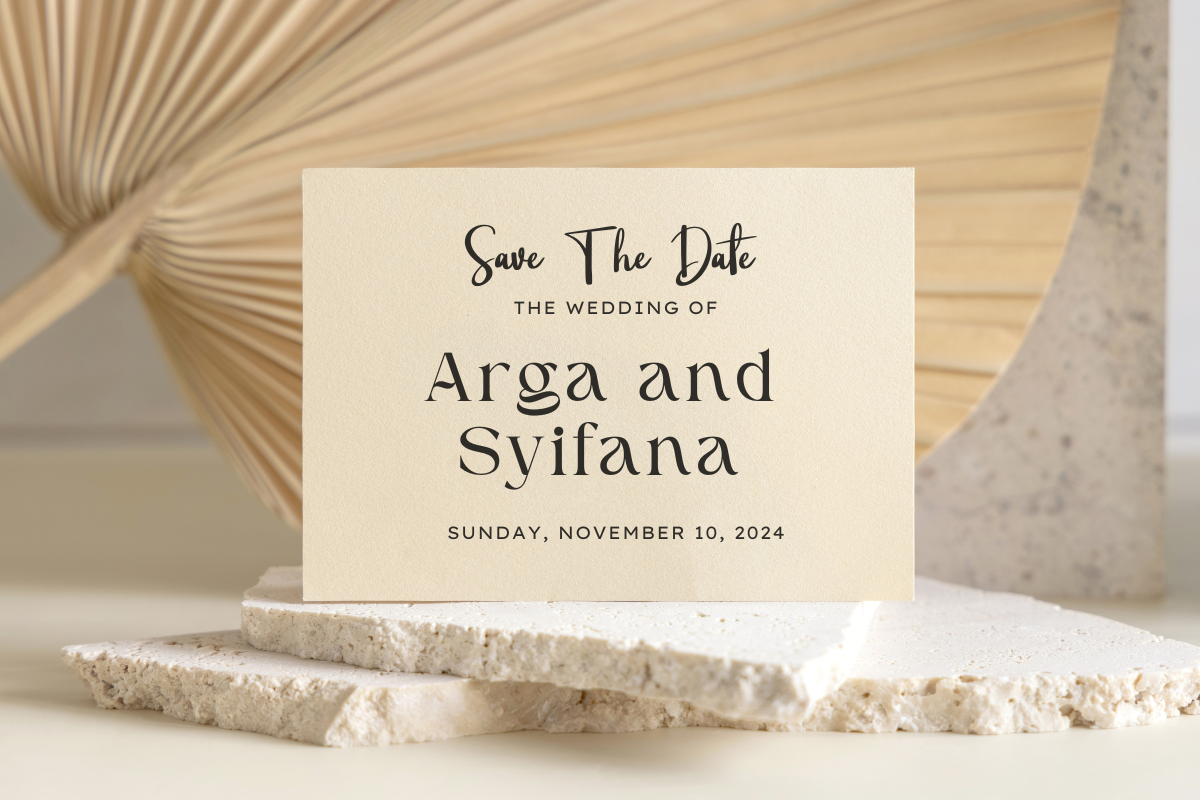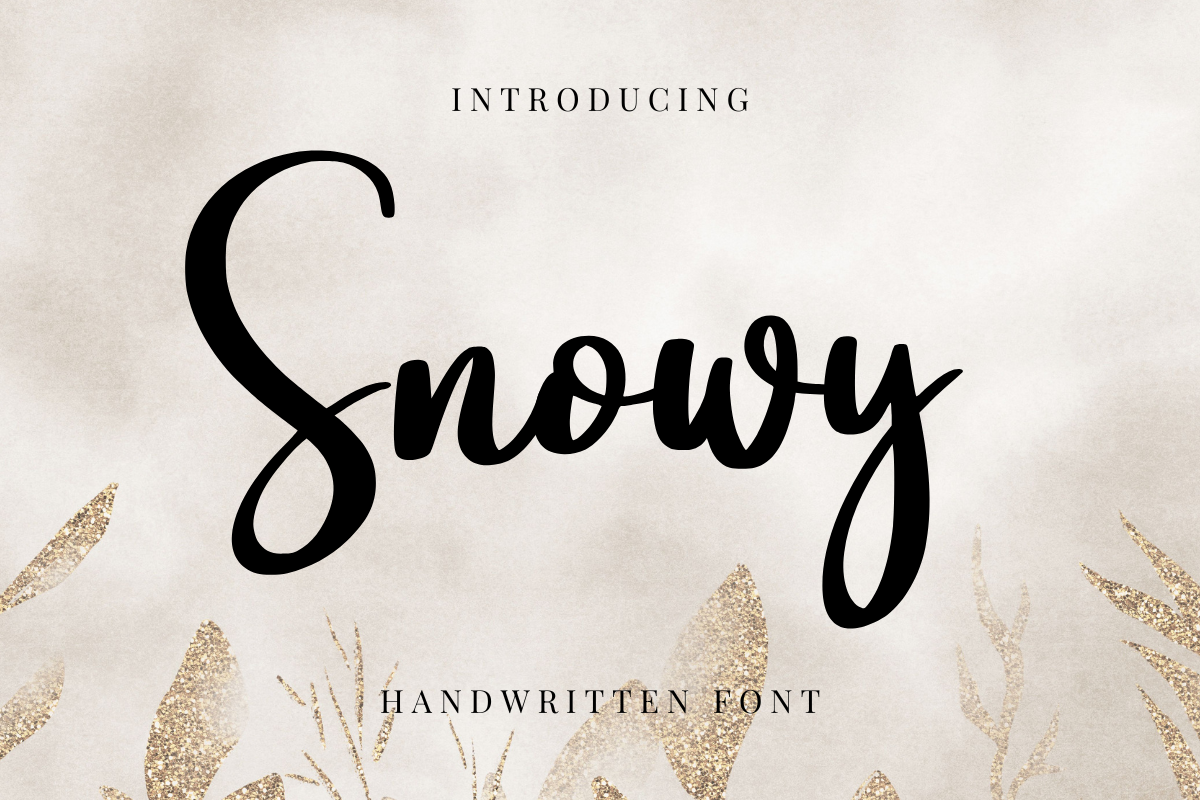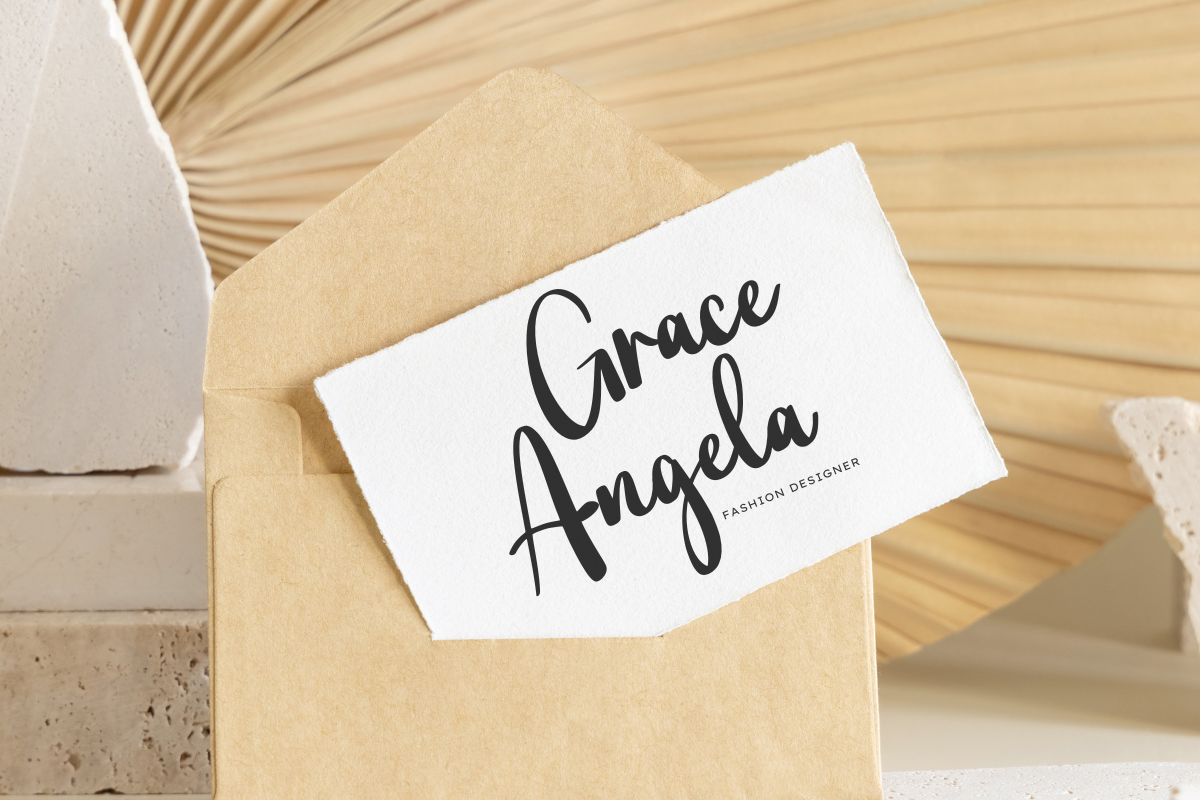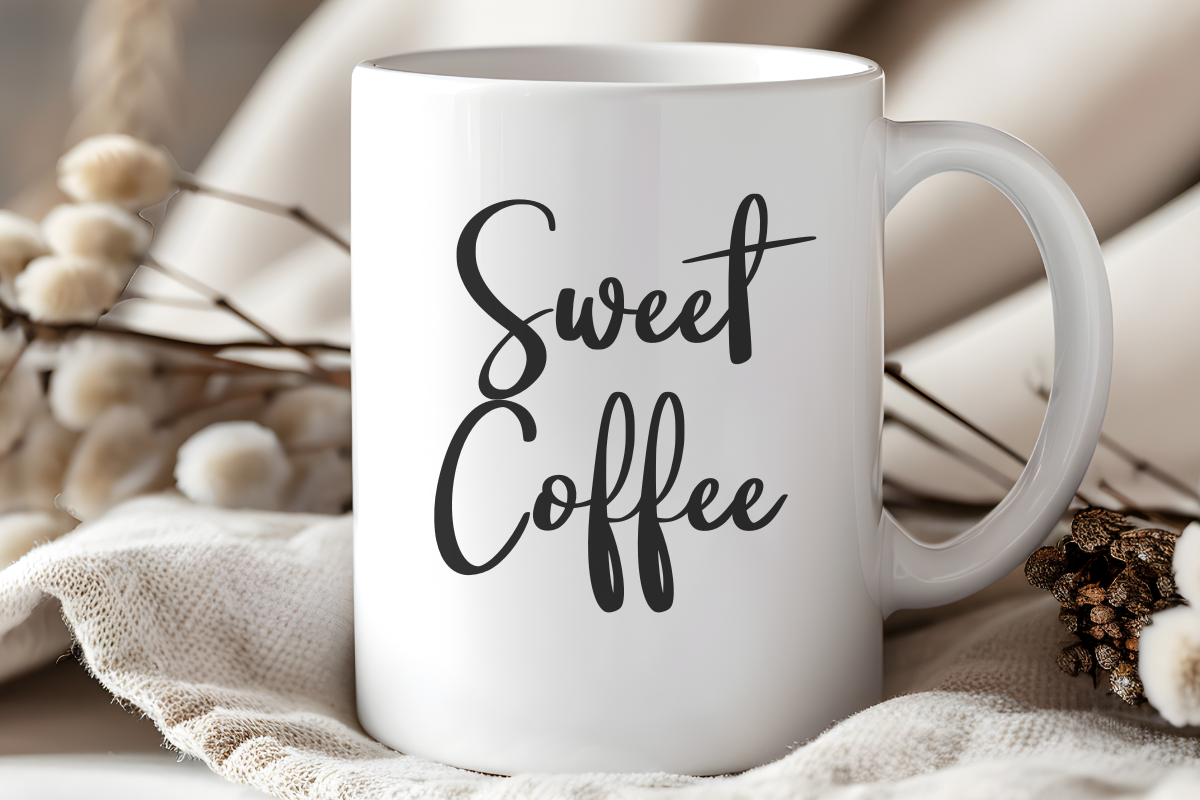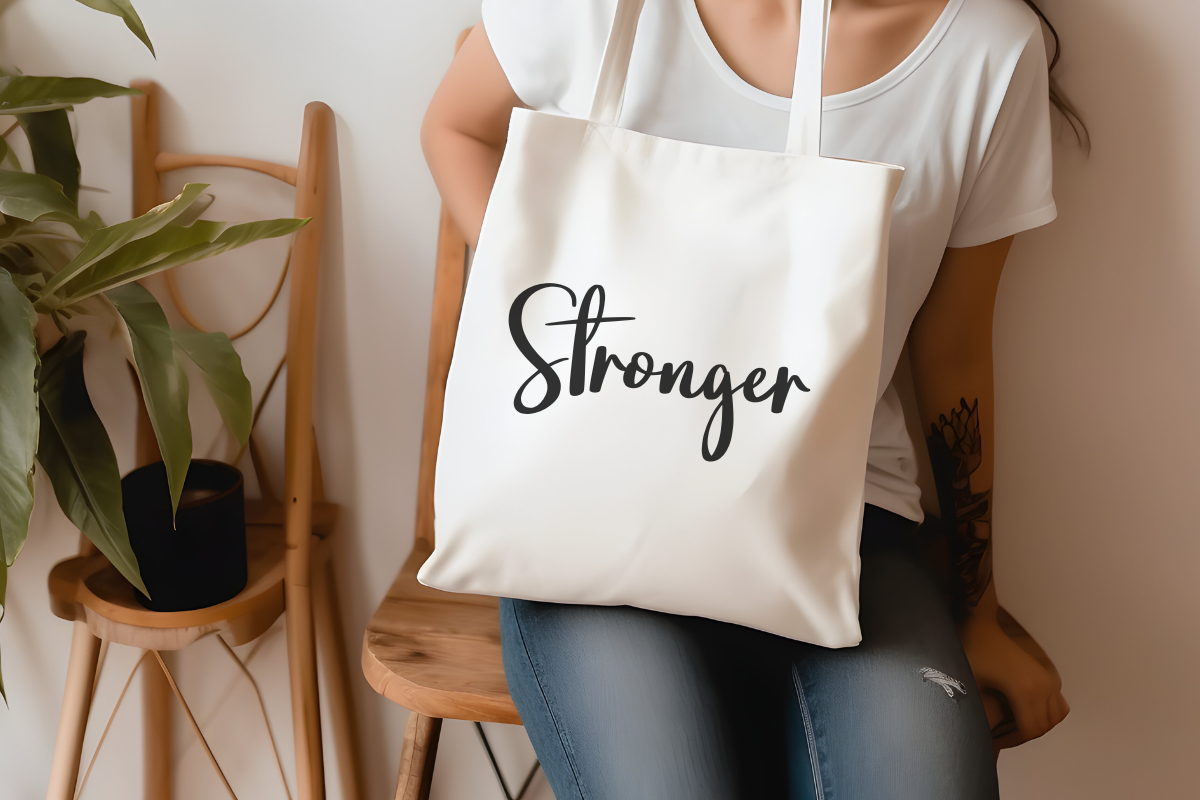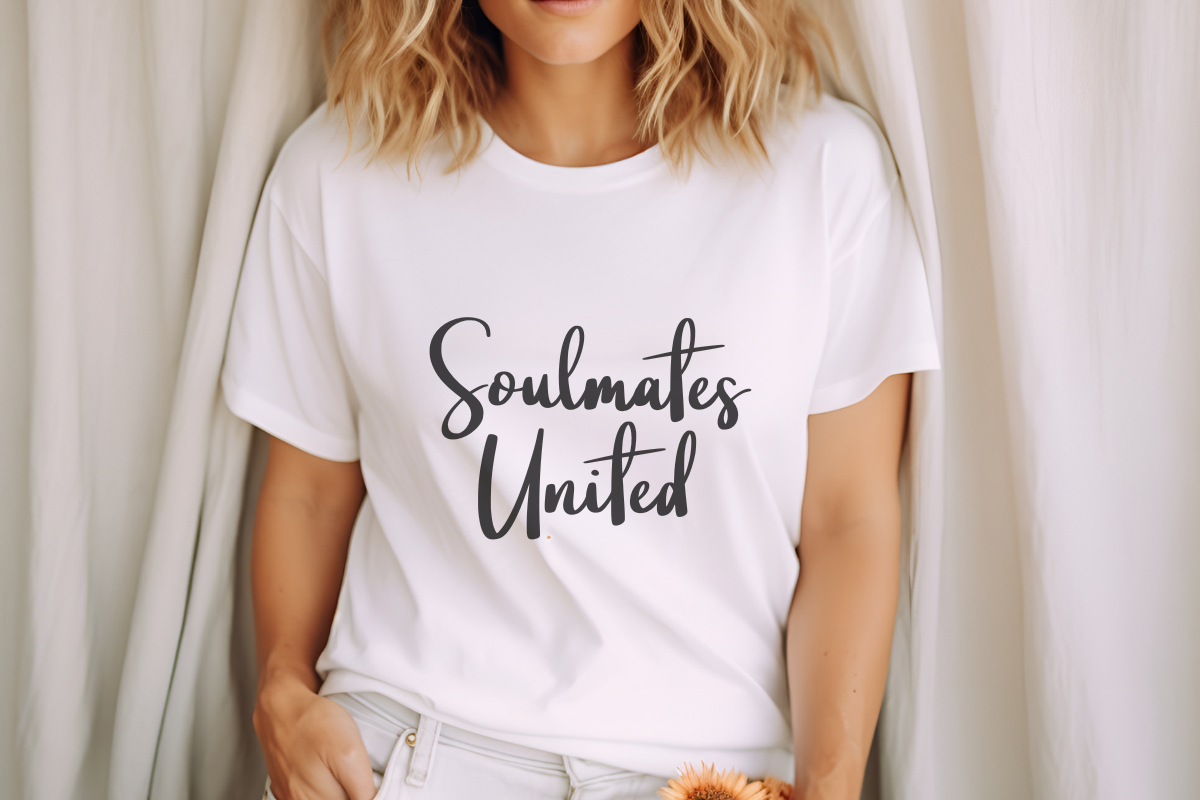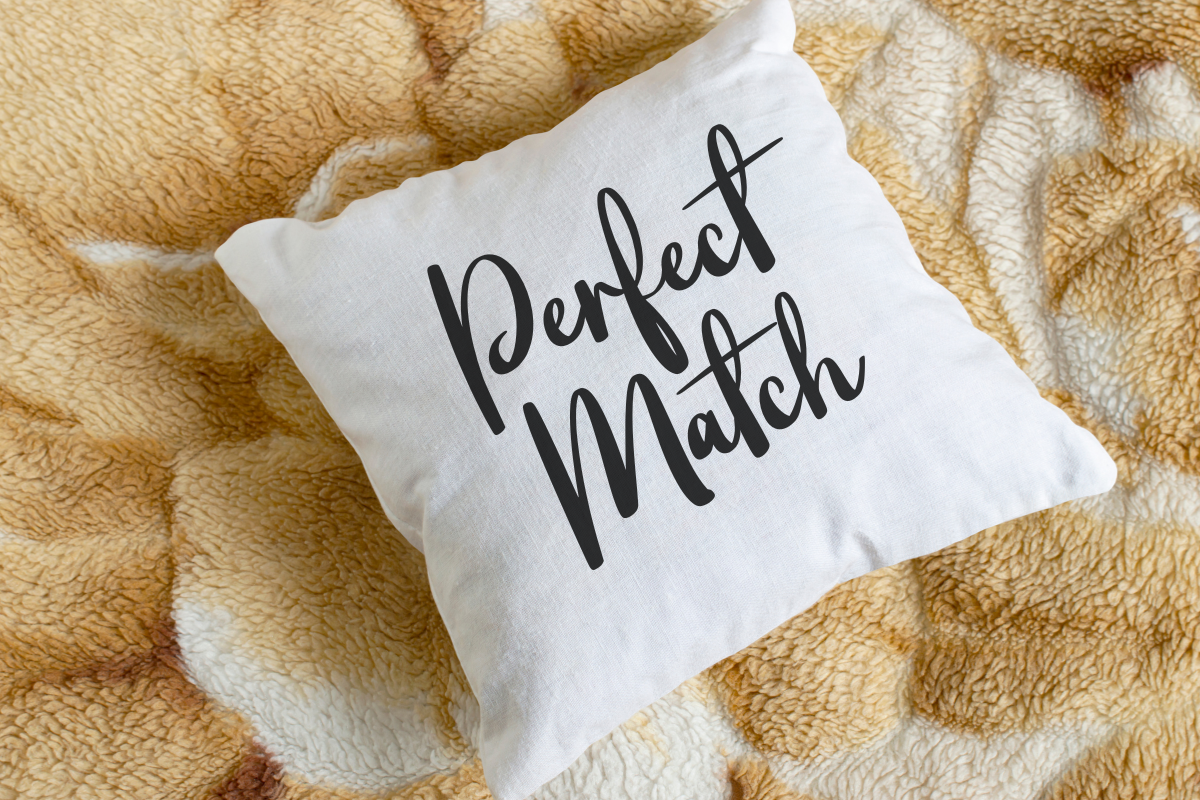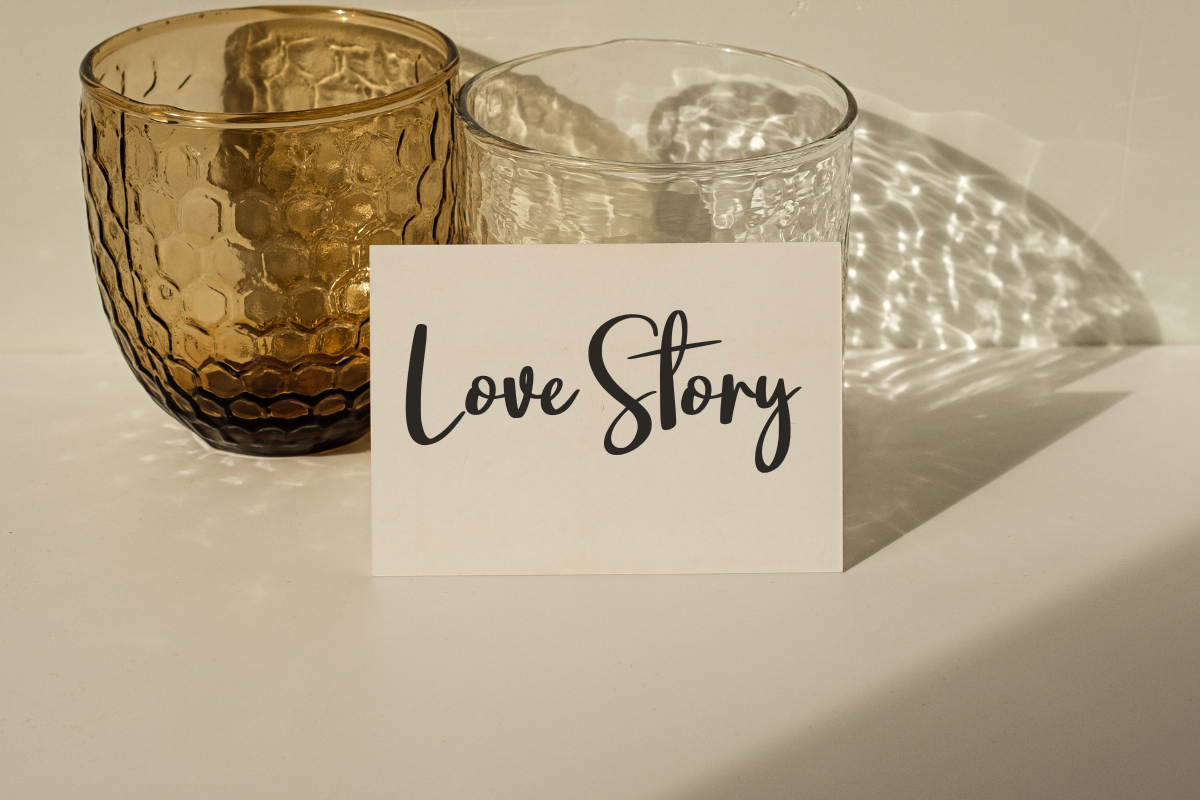
Snowy - Sweet Handwritten Font
Snowy is an elegant and modern script font with smooth and luxurious strokes. Perfect for wedding invitations, branding, logos, quotes, greeting cards and signature styles. With a feminine and stylish look, this font will give an exclusive touch to your designs!